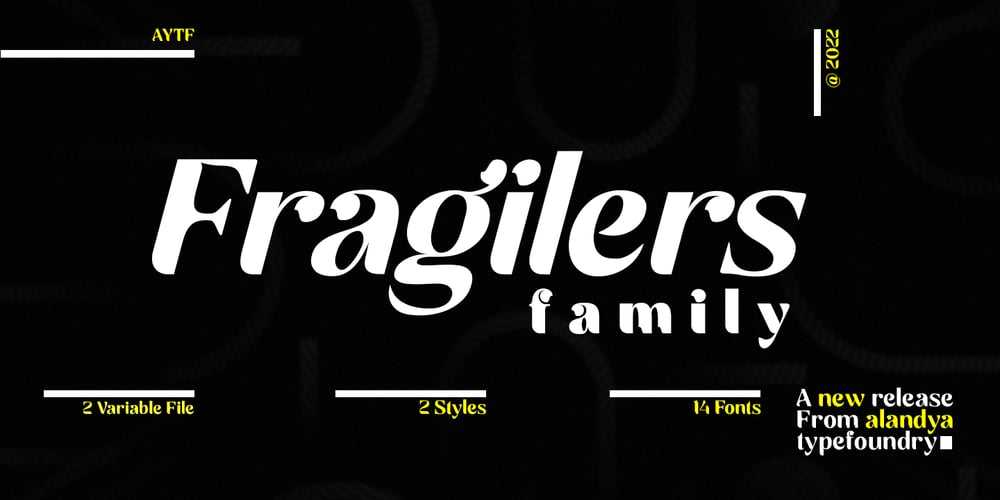
Fragilers Family
Fragilers Family font
Fragilers Family Font Family was designed by Cut Nurfajarlia and published by Alandya TypeFoundry. Fragilers Family contains 16 styles and family package options. Fragilers Family is a sans serif family with high contrast, making it a versatile and elegant typeface.Fragilers Family is available in several weights, not too much, but not too little, just the right amount, and available in oblique styles.Fragilers contrast lines and smooth terminals give a sleek and elegant look to logos, holiday cards, wedding invitations, quotes, advertisements, and more.Fragilers is a versatile typeface full of character to enrich your designs. And of course multilingual support.Create awesome layouts of your designs with Fragilers Family.